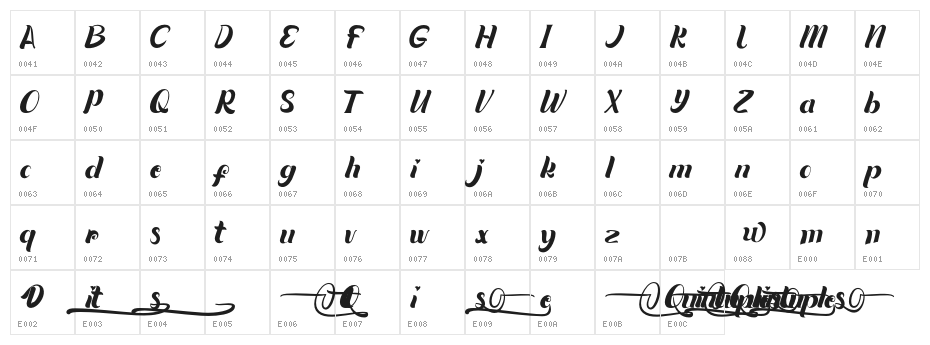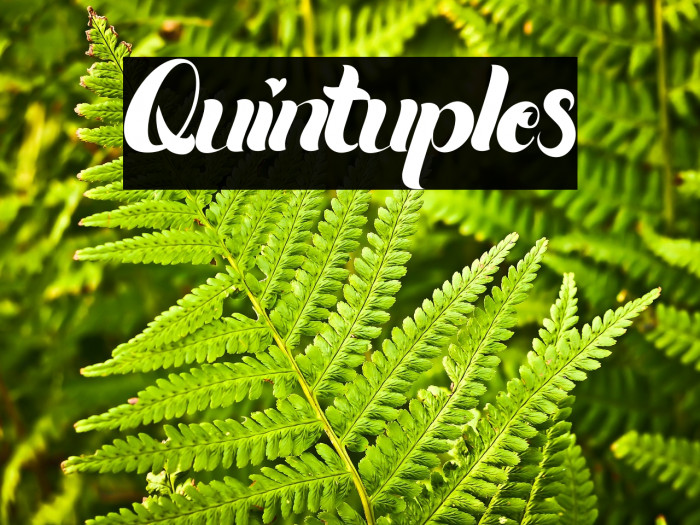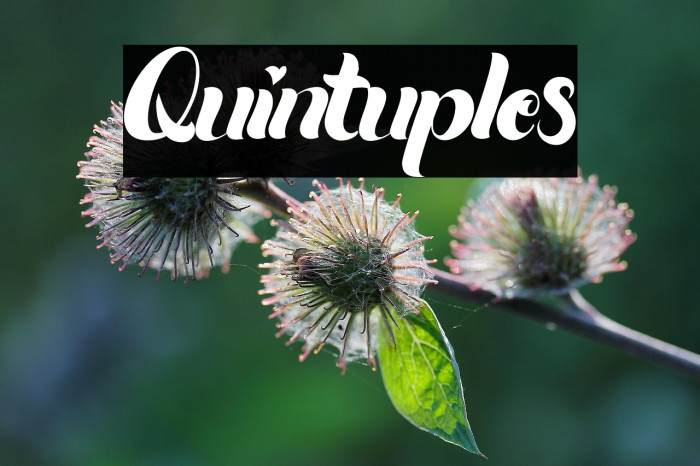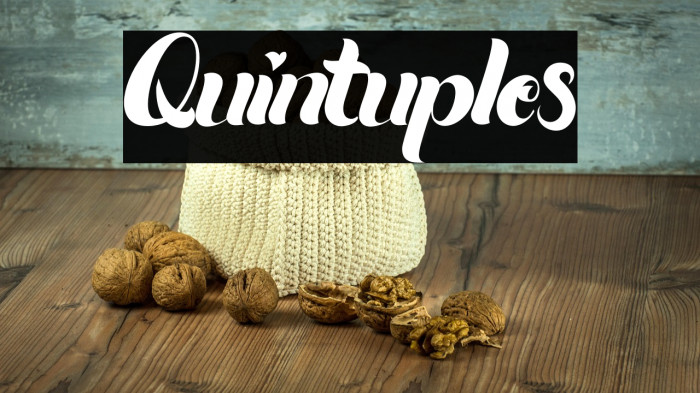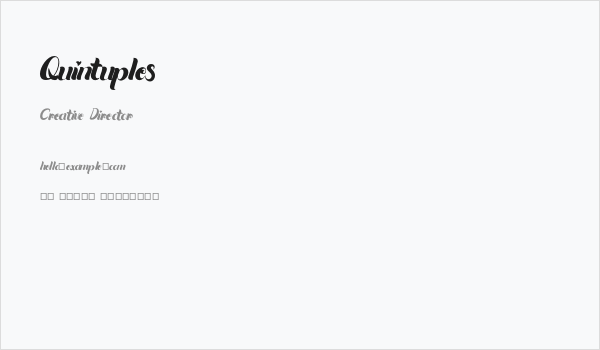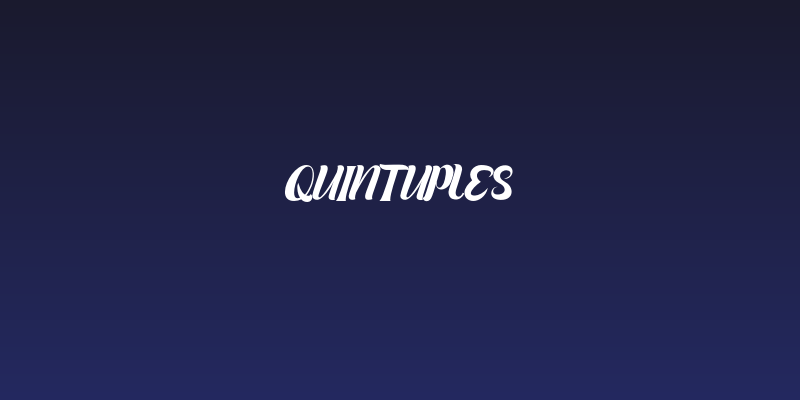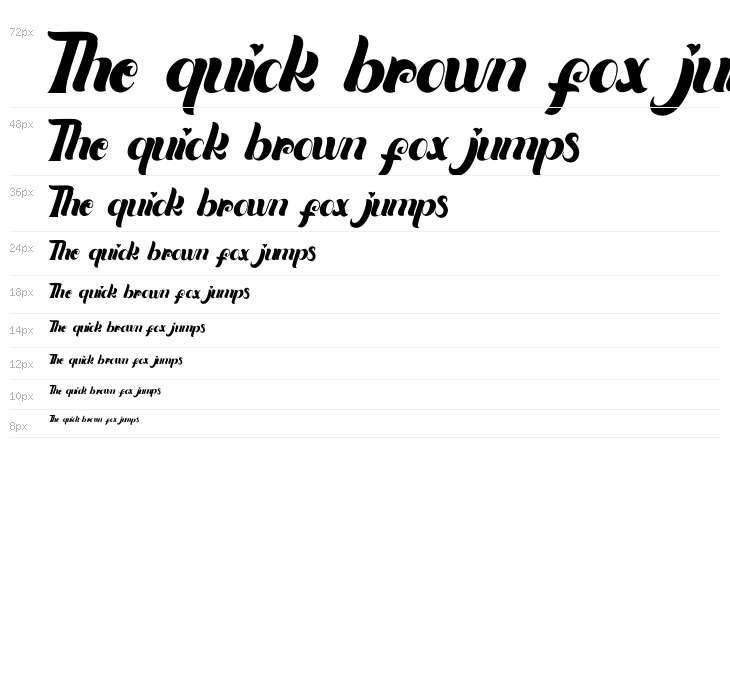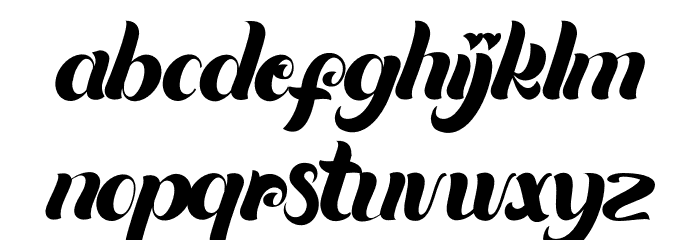
Quintuples Font
Quintuples Description
This font features a bold and dynamic script style with a strong presence. The uppercase letters are elegantly curved with a slight slant, giving them a sense of movement and fluidity. The lowercase letters maintain a consistent style, with rounded edges and smooth transitions between strokes. The font exhibits a high contrast between thick and thin strokes, enhancing its visual impact. The overall design is modern and expressive, suitable for creating eye-catching headlines or logos. The character spacing is normal, allowing for clear readability while maintaining its decorative appeal.
| Proposed Projects | Ideal for branding, logos, headlines, and creative design projects requiring a bold and expressive touch. |